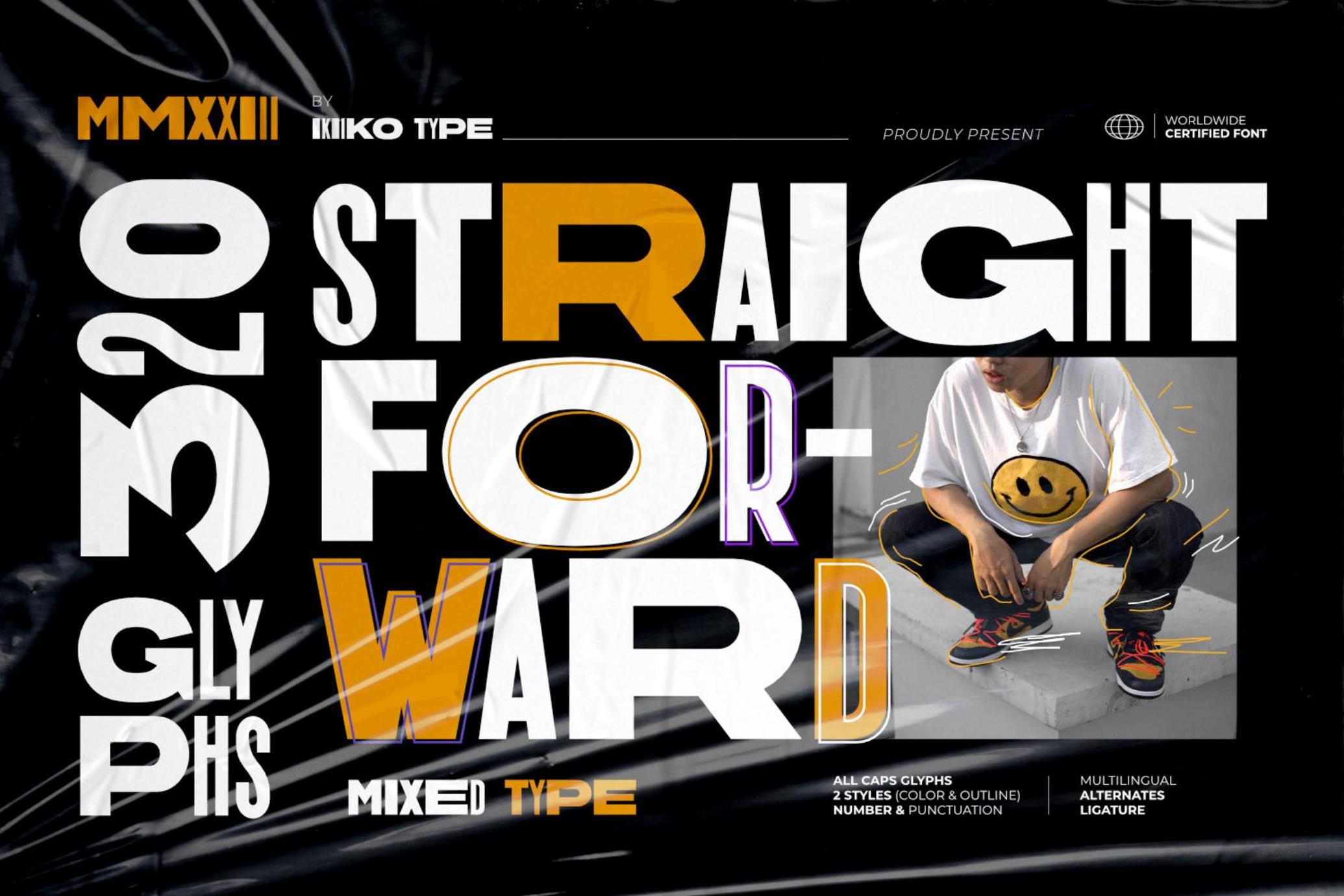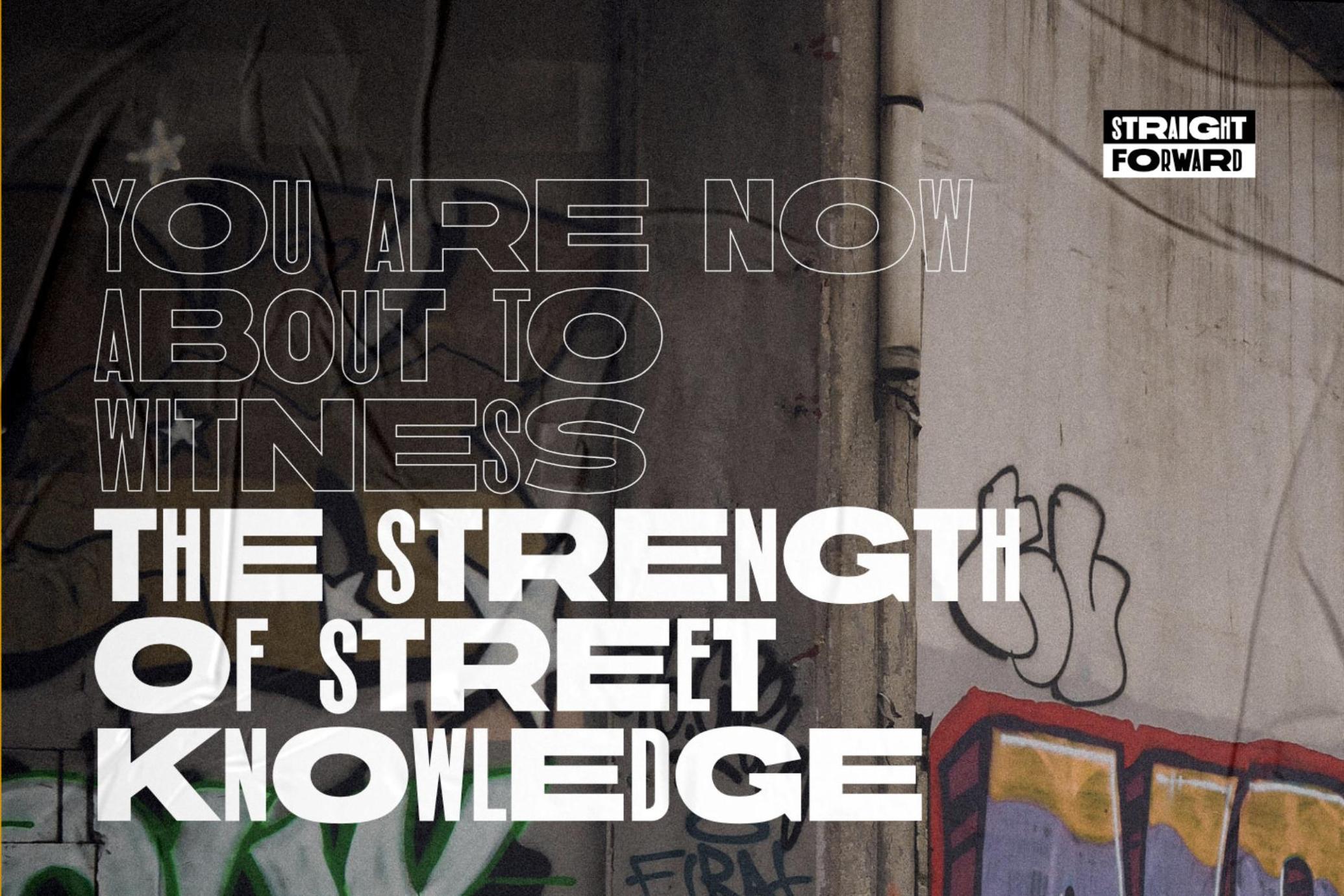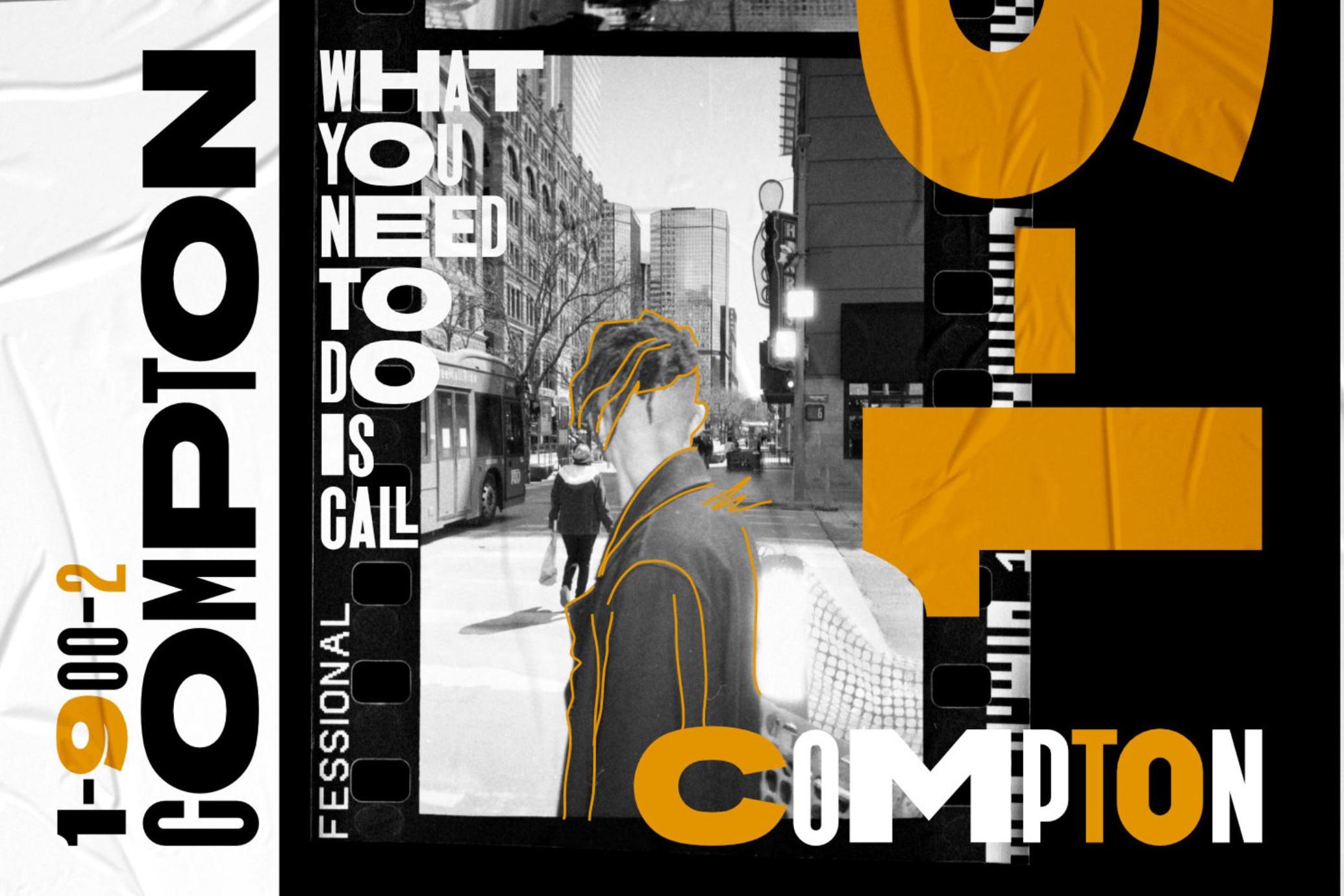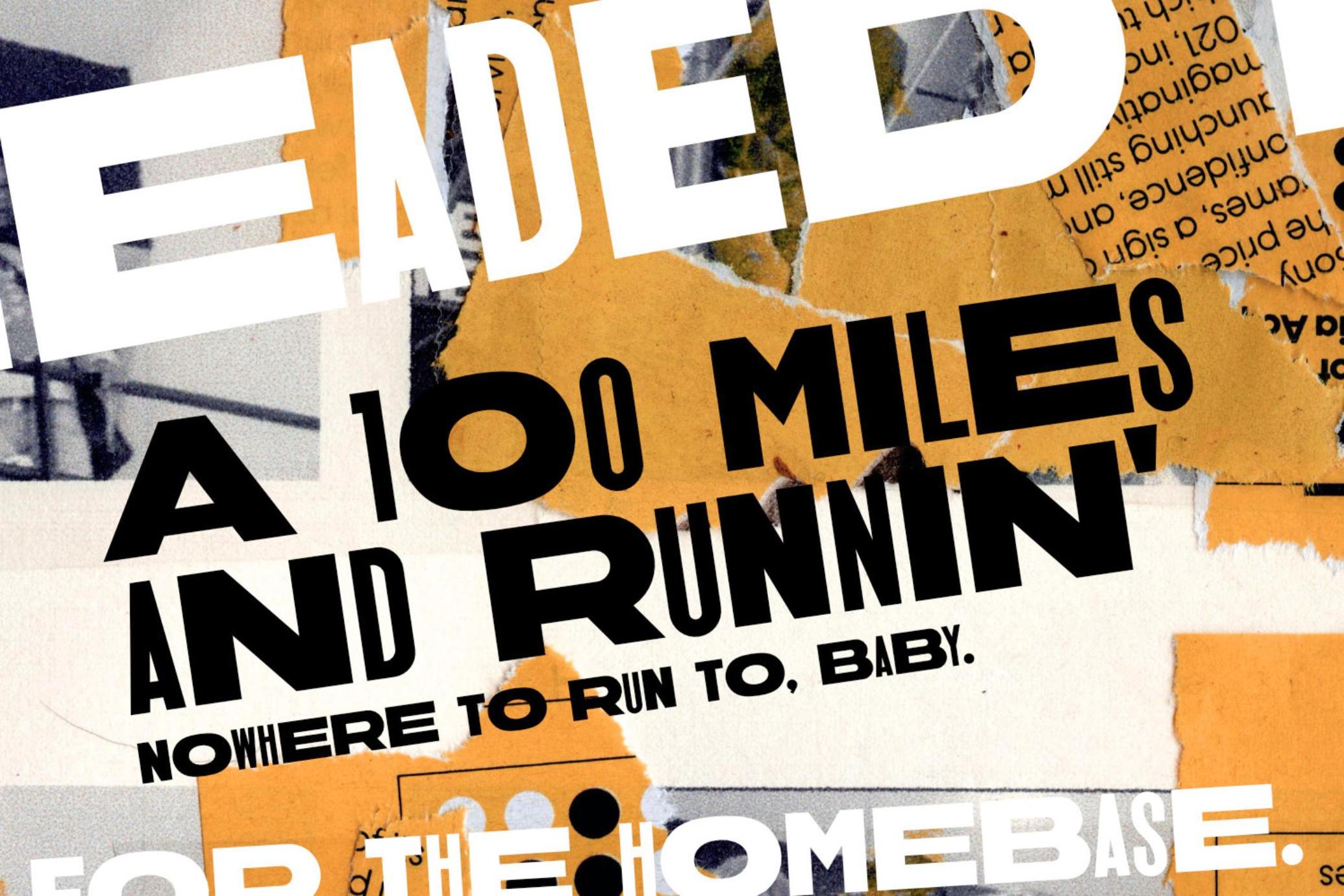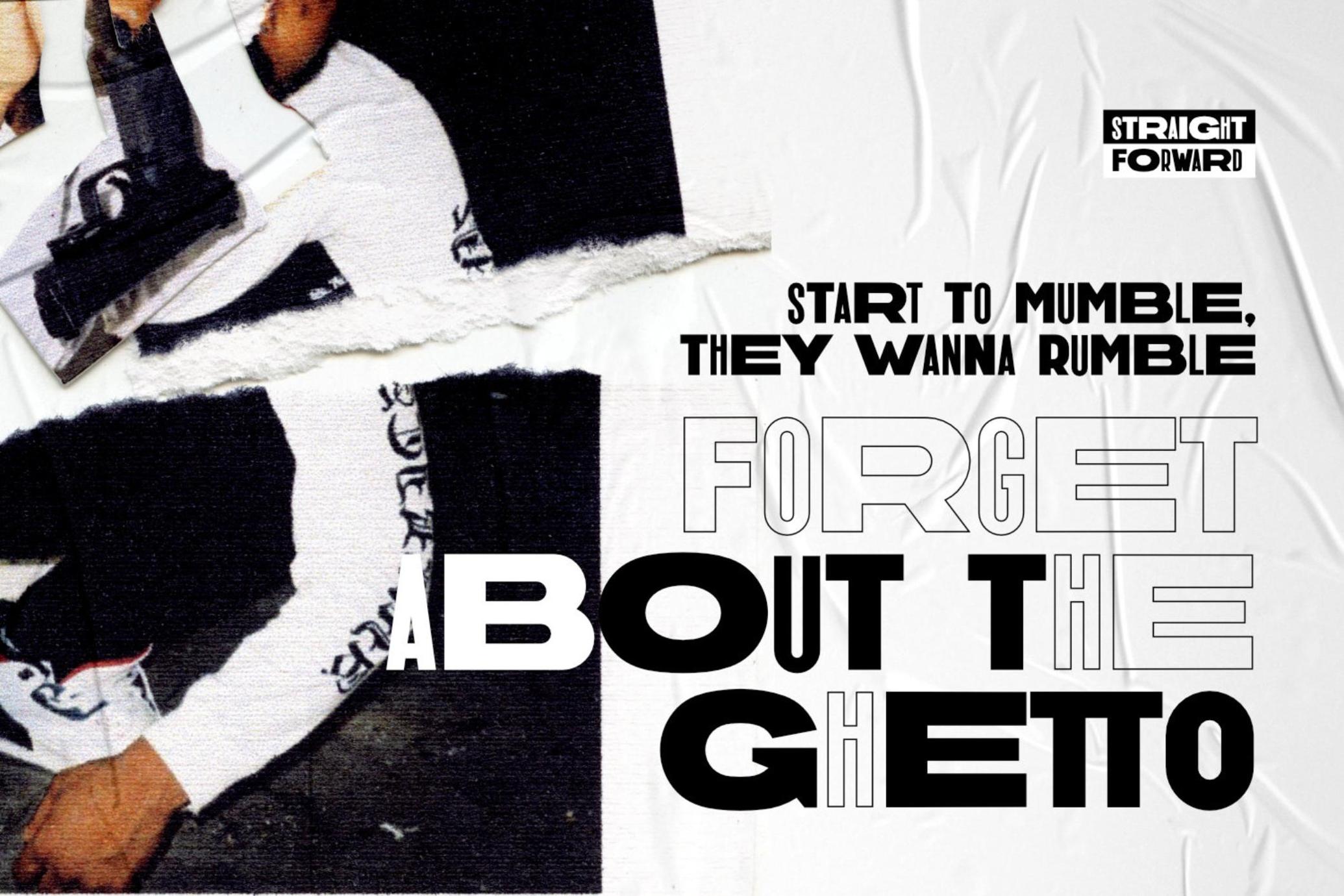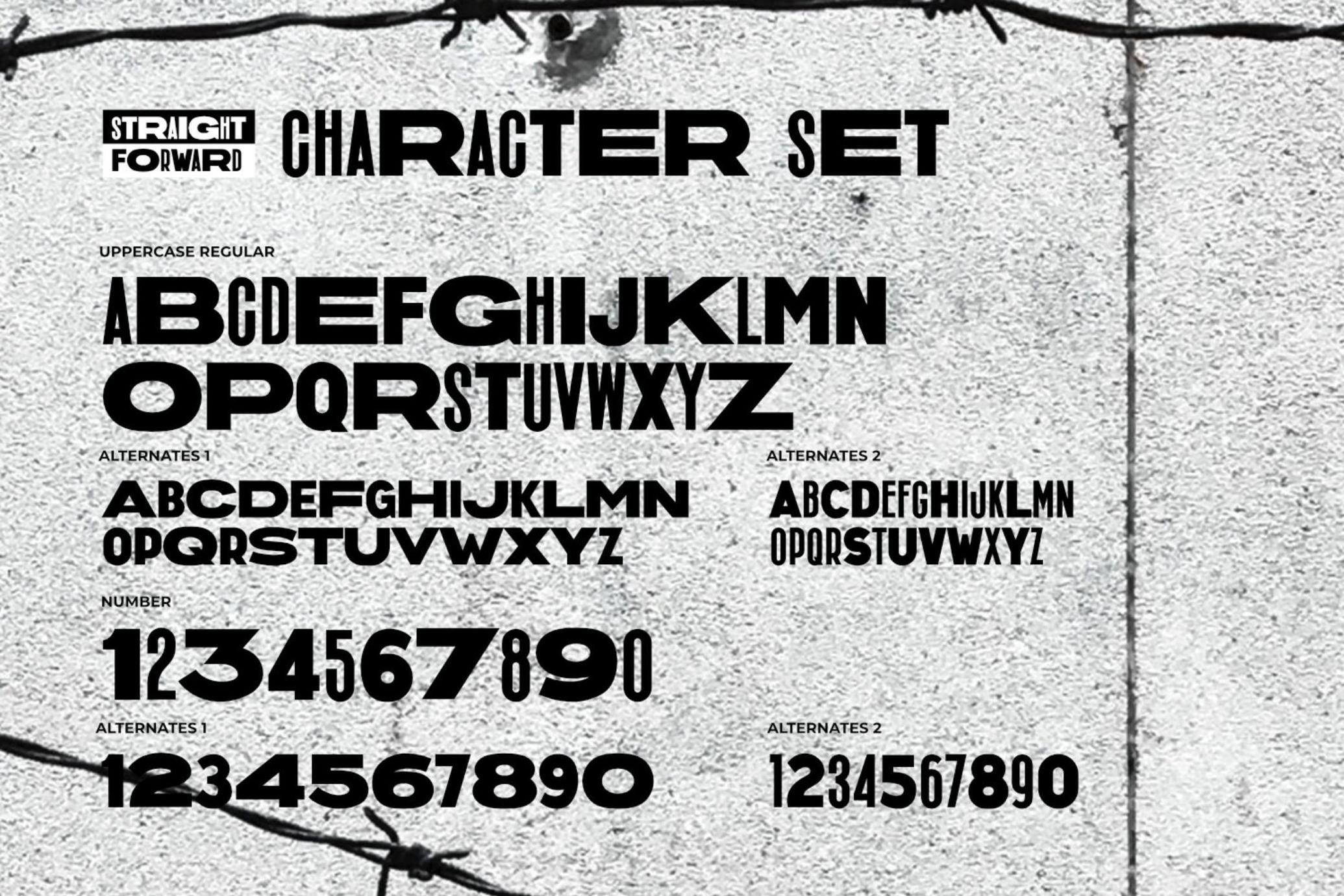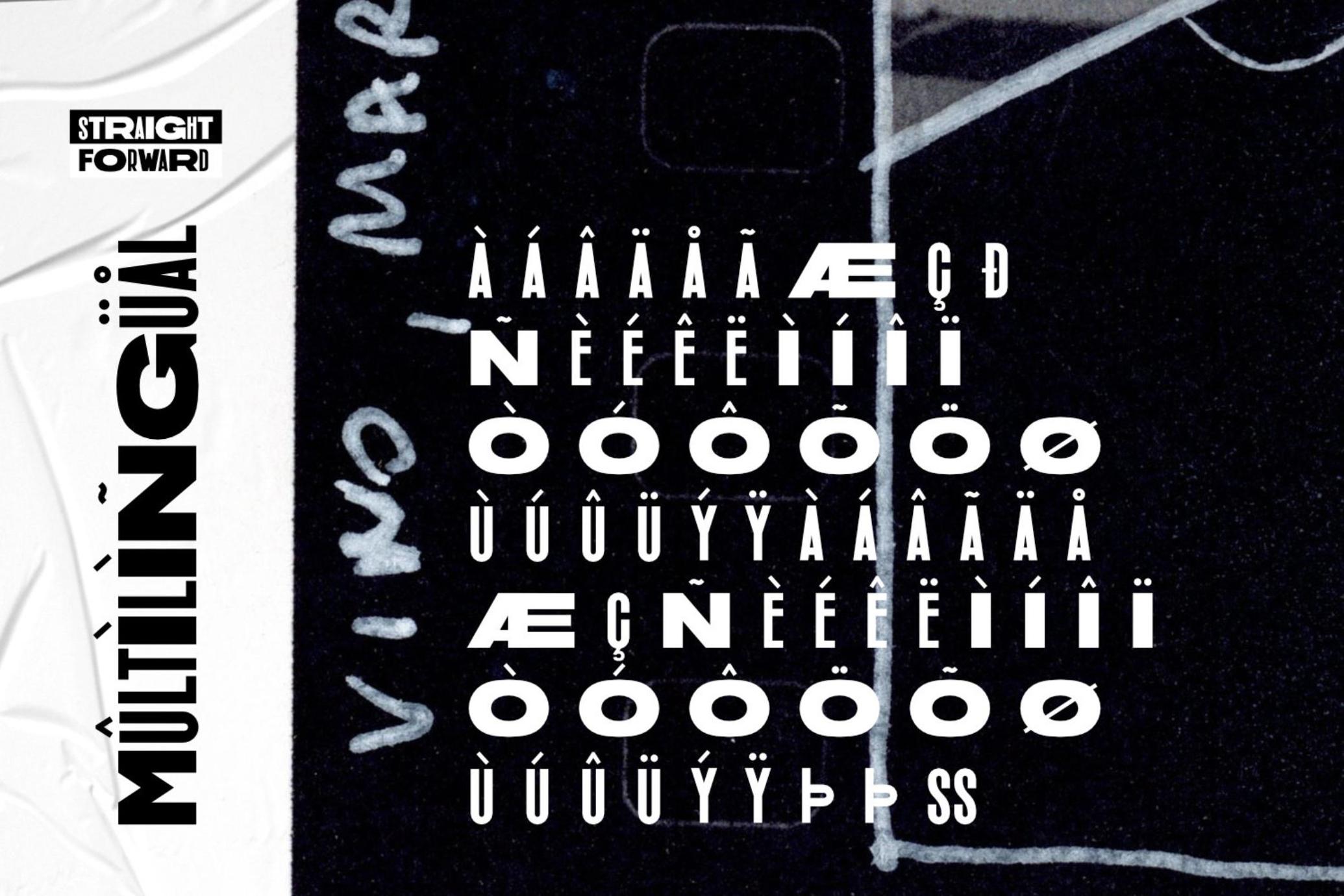
Straight Forward - Mixed Font
StraightForward
Straight Forward is a mixed sans serif font type, with wide to condensed characters. Straight Forward has 3 alternative letter shapes that have been mixed and can be played by changing the alternate types. This font is available in 2 types of color for Uppercase and outline for Lowercase.
This type is very suitable for making a streetwear brand, poster or magazine layout, fashion design, quotes, or simply as a stylish text overlay to any background image.
- All Caps Glyphs
- 2 Styles (Color & Outline)
- Number & Punctuation
- 3 Type Alternates + Bonus Ligature